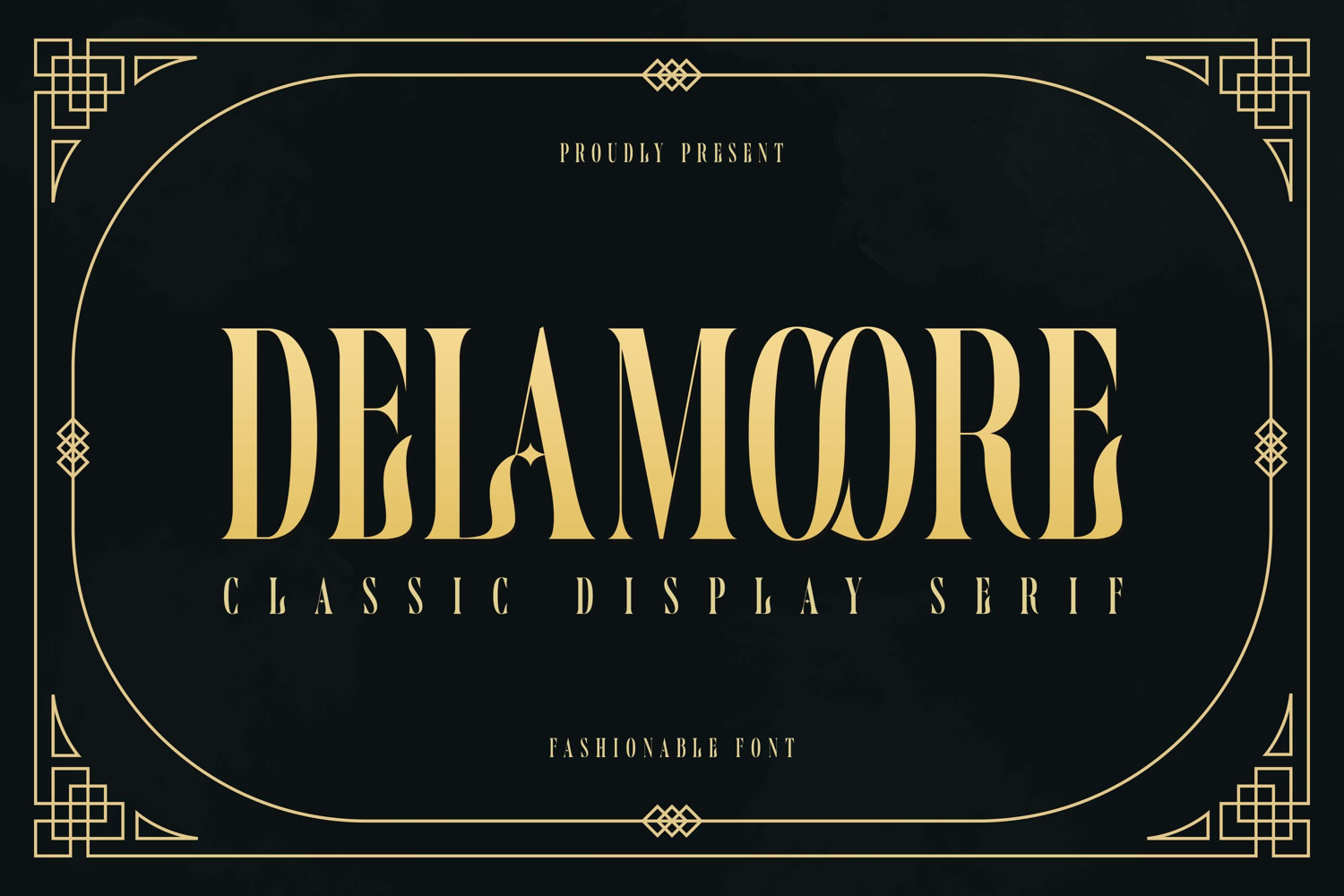
Delamoore - Classic Display Serif
Introducing our latest display typeface called Delamoore Classic Display Serif with vintage taste can make your logotype become more interesting. Best Vintage font with special Ligatures, and multilingual support. inspired by the decorative arts and architecture movement
Delamoore fonts is perfect for your project and allows you to create designs, headlines, posters, logos, badges, t-shirts and many more that are beautiful. It is also best used for posts, logos, posters, certificates, labels and more.